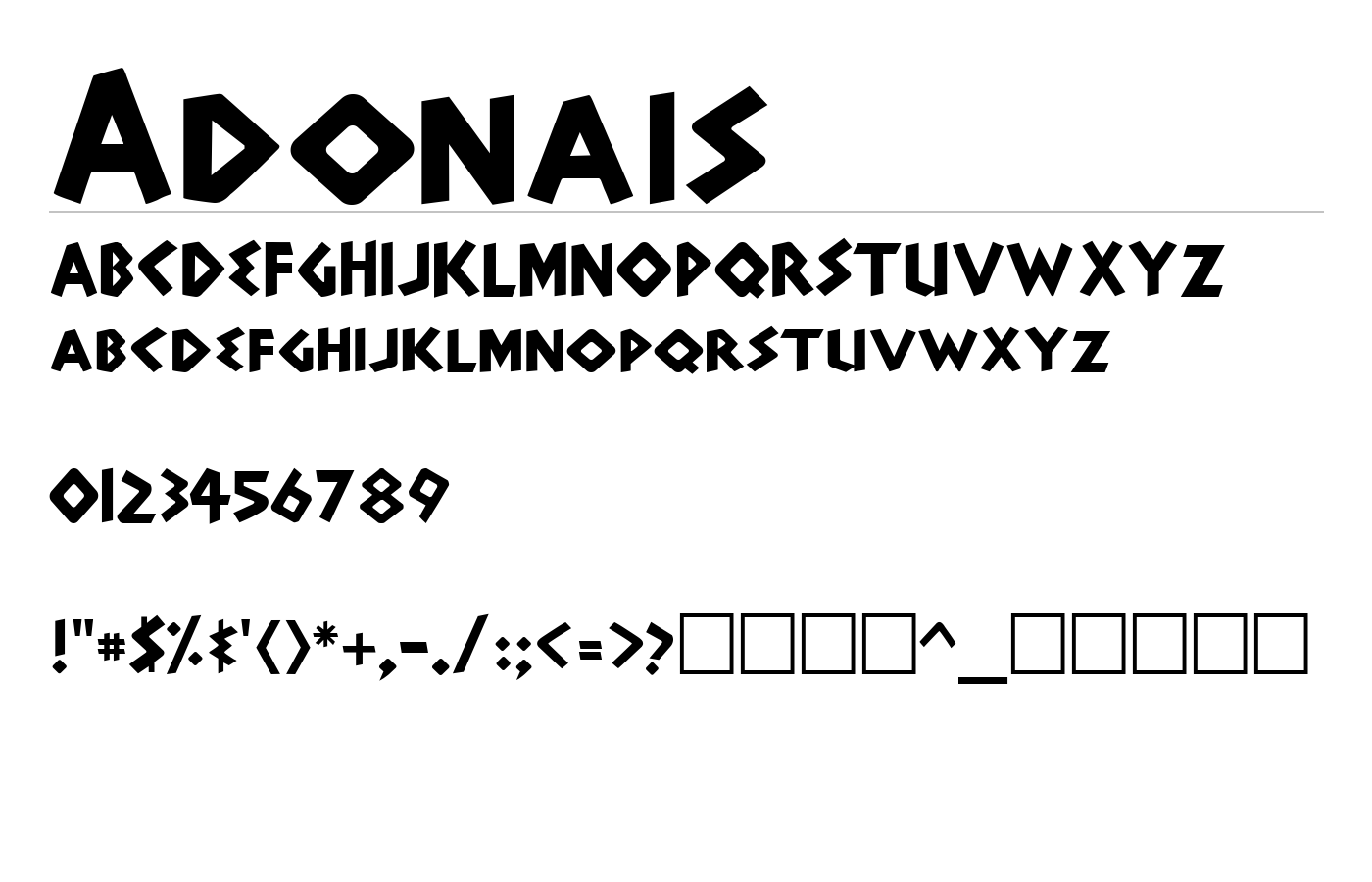
Adonais is a bold, all-caps display font with a unique, angular design that gives it a strong, geometric character. Its irregular stroke shapes and playful, slightly rough edges lend it an energetic and artistic feel, making it perfect for eye-catching posters, logos, or branding that aims to stand out with a creative, vintage-inspired vibe. This font works best in headlines or short phrases where its distinctive personality can shine without compromising readability.
Adonais Font